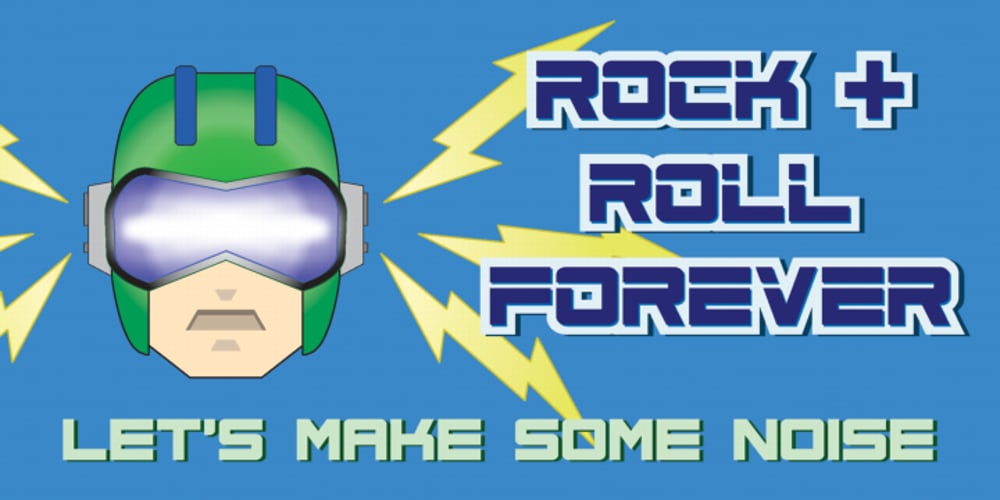
Jupiter Squadron Font Family was designed by Ronnie Cruz and published by Cyberian Khatru. Jupiter Squadron contains 3 styles and family package options. The look of Jupiter Squadron is meant to be evocative of Science Fiction Space Fantasy concepts. A lot of people might come to the conclusion that the ESPN logo is the inspiration for these letterforms. Clearly the designer of the ESPN logo had the same idea I had, but this is obviously not an exact duplication. For more information: homepage.mac.com/